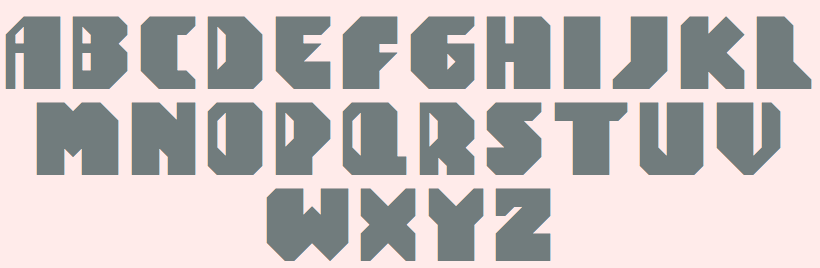
Tom van der Linden
Graduate of the Utrecht School of Arts in The Netherlands, b. 1986. Illustrator and graphic designer based in Oud-Beierland (was: Rijnsburg), The Netherlands, who has created some typefaces at FontStruct under the alias Tommiokoman. These include the techno retro sci-fi typeface Tomatron (2014). Tumblr link. Behance link. Dafont link. |